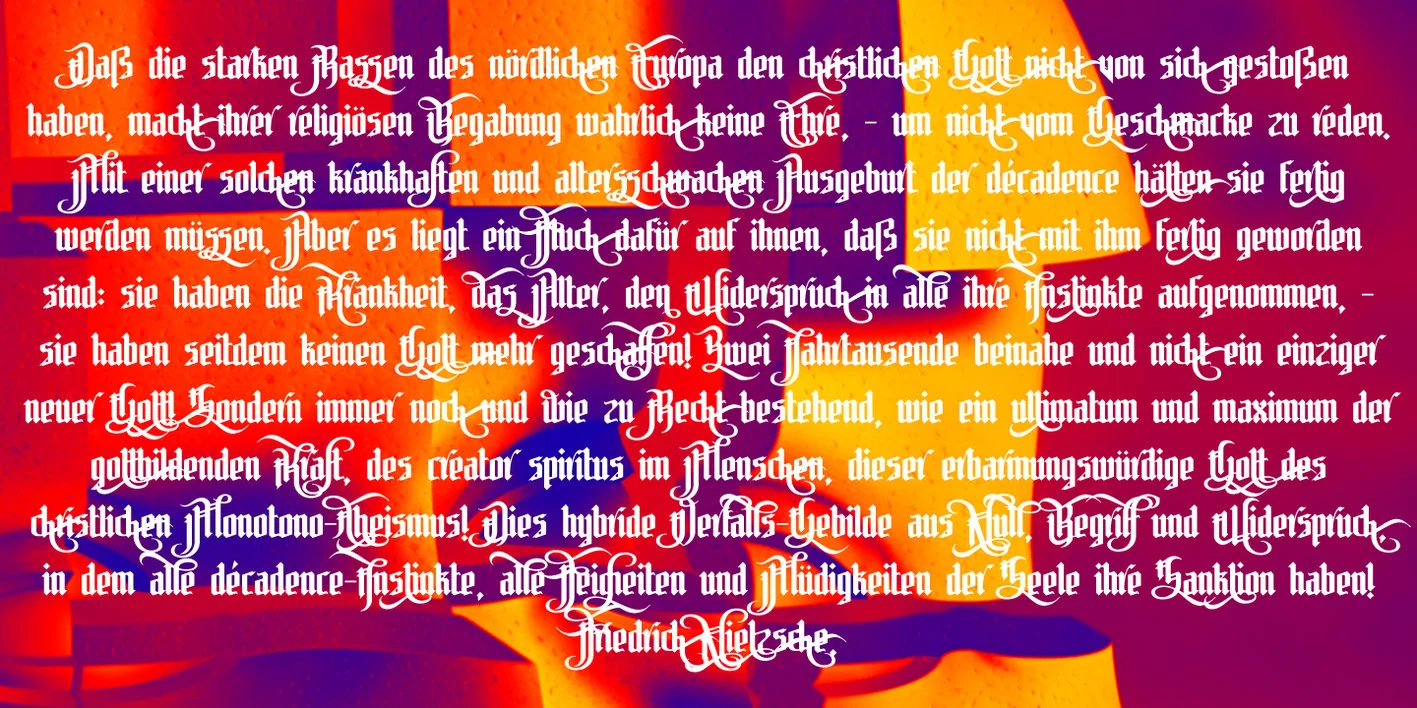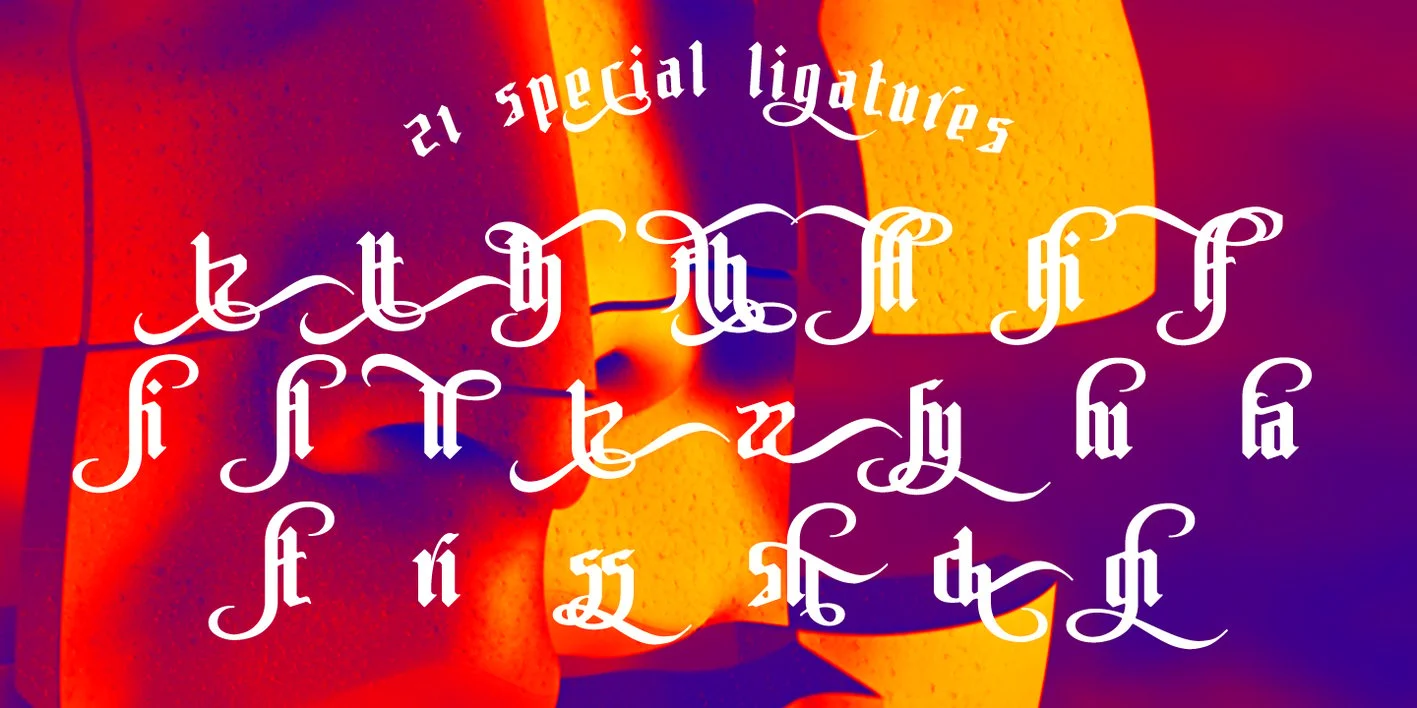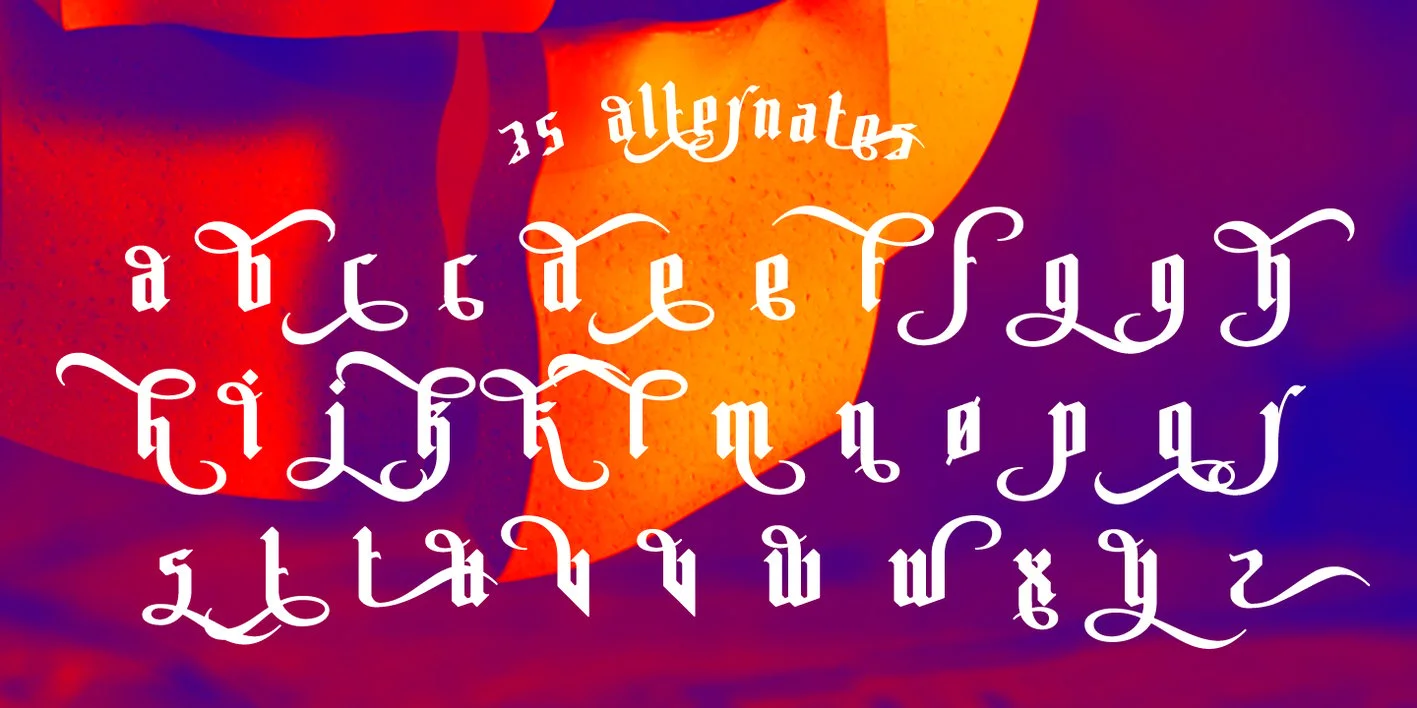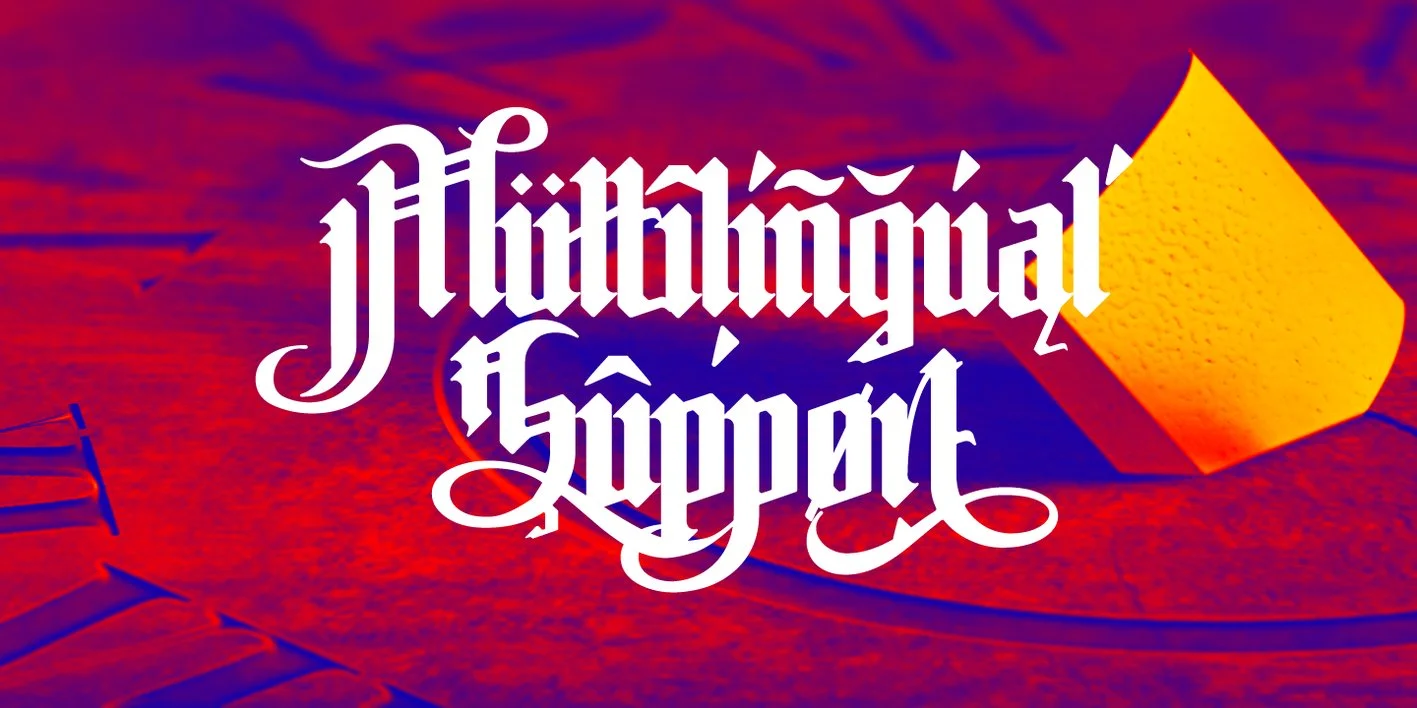
Phagoth Font
Typography shapes perception at a subconscious level. Phagoth leverages the kind of restraint that lets content lead to make every composition feel considered. The typeface brings a versatile sensibility to a broad range of creative disciplines, with controlled contrast that rewards close inspection that holds up whether the work is print-first or screen-first.
In practice, Phagoth proves particularly effective for social media graphics, poster creation, packaging design, product labels, annual reports. Designers reaching for it find that the type decisions feel resolved rather than laboured — a useful quality when client timelines are tight.
The range of applications extends to environmental graphics, logo design, brand identity systems, web design. That breadth is deliberate: the proportions and spacing were stress-tested across a wide range of mock briefs before the typeface was finalised.
Freelance designers across print and digital disciplines find Phagoth a reliable choice for projects that demand both personality and restraint. The design avoids the self-conscious quirkiness that dates quickly, settling instead for considered distinctiveness that holds up over time.